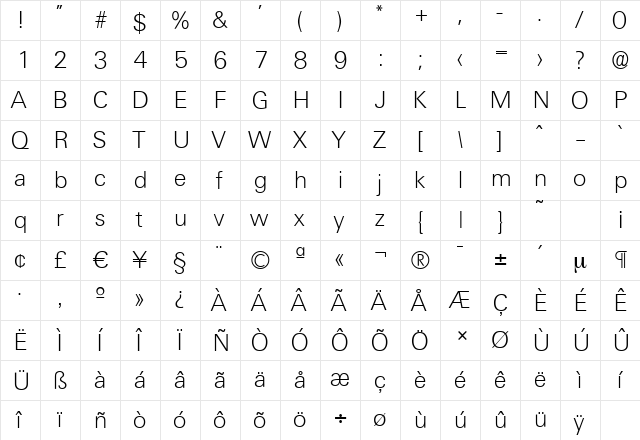
UltimateSerial-Xlight Regular
Design Context for UltimateSerial-Xlight Typeface
UltimateSerial-Xlight offers clean, dependable letterforms without strong stylistic allegiance, making it a practical choice for designers who need flexibility. Its slender proportions lend an understated elegance to any composition.
Pro Tip: Pair UltimateSerial-Xlight with a font of contrasting weight or personality to build a more expressive typographic hierarchy.